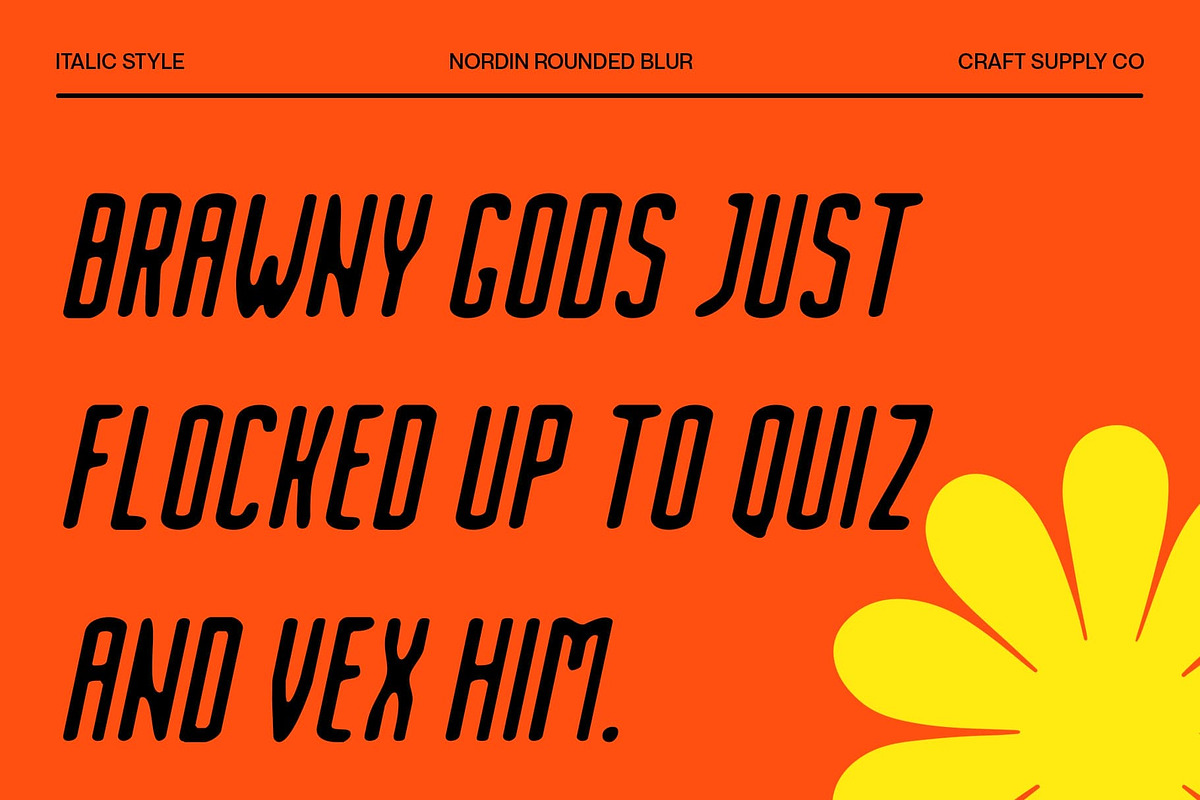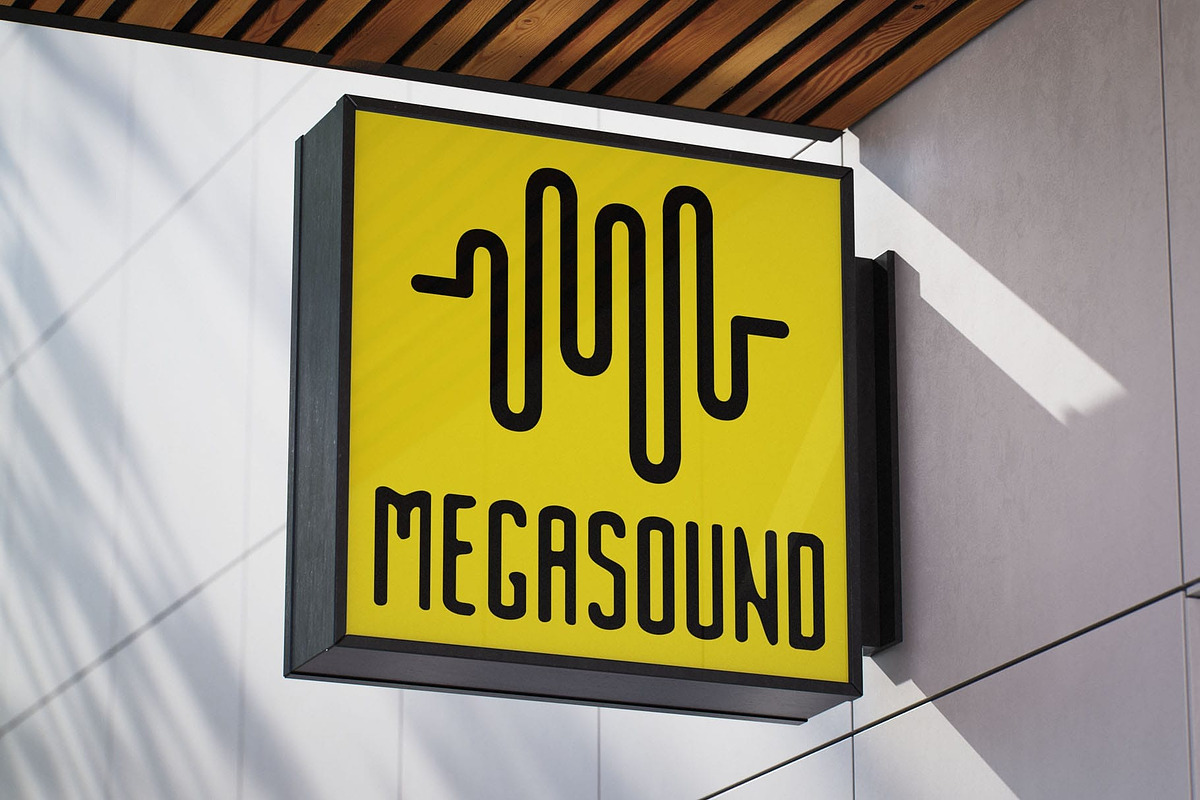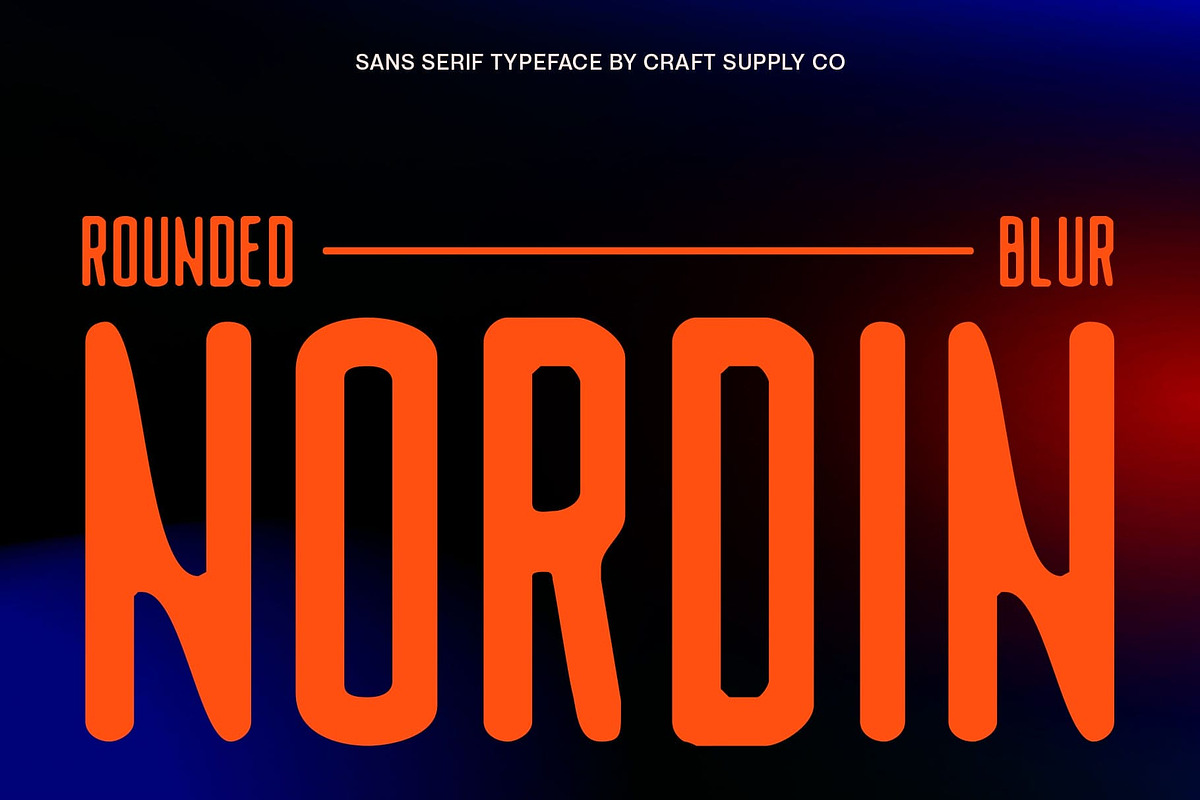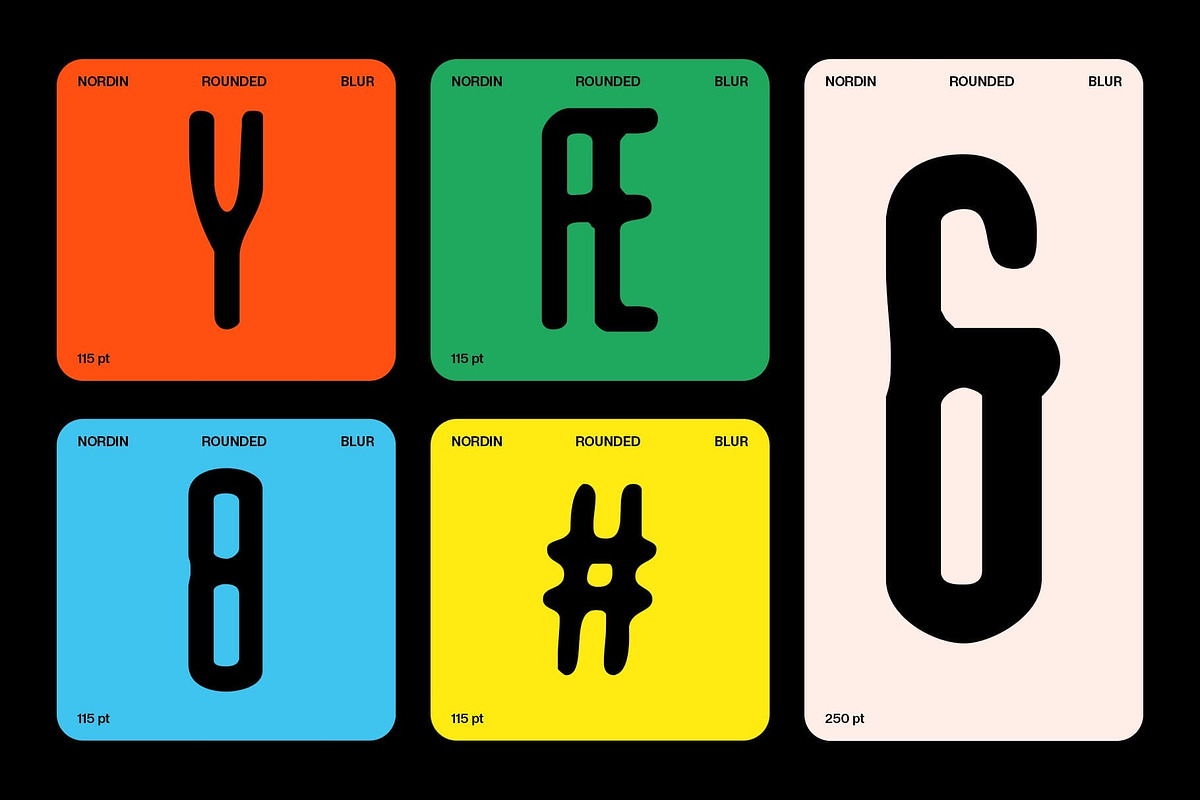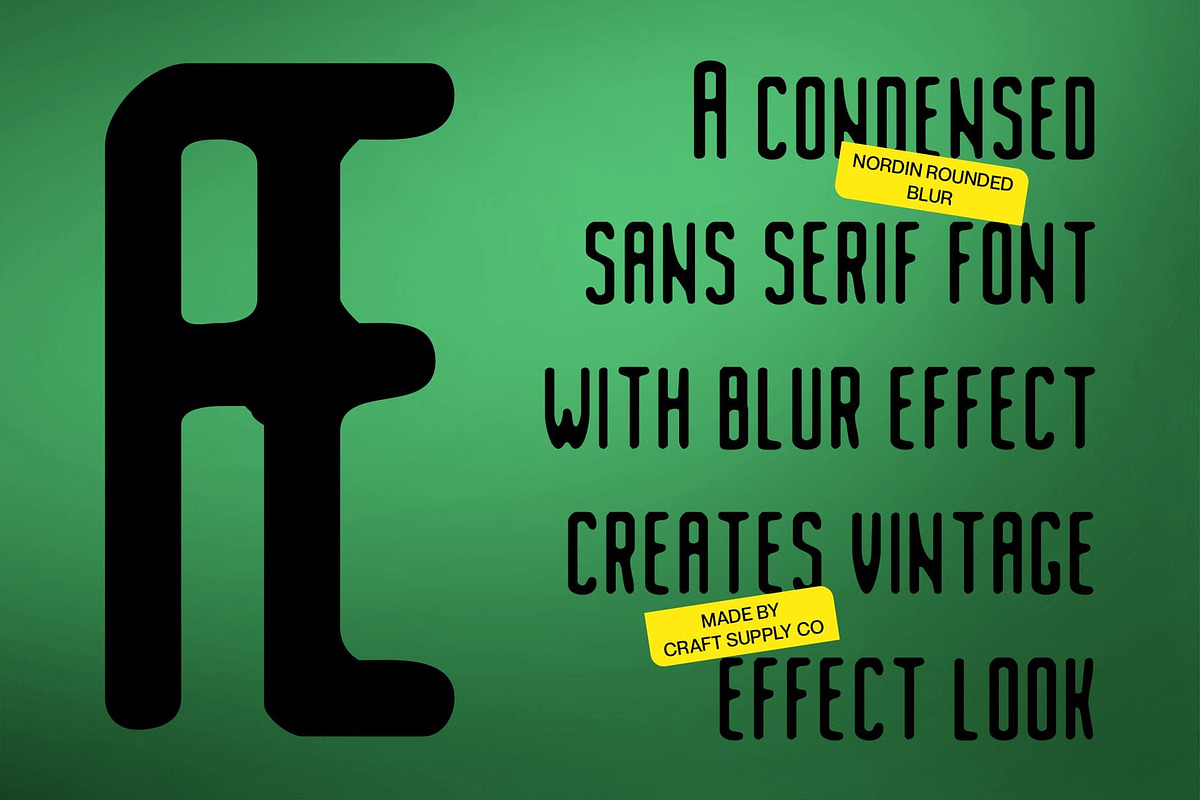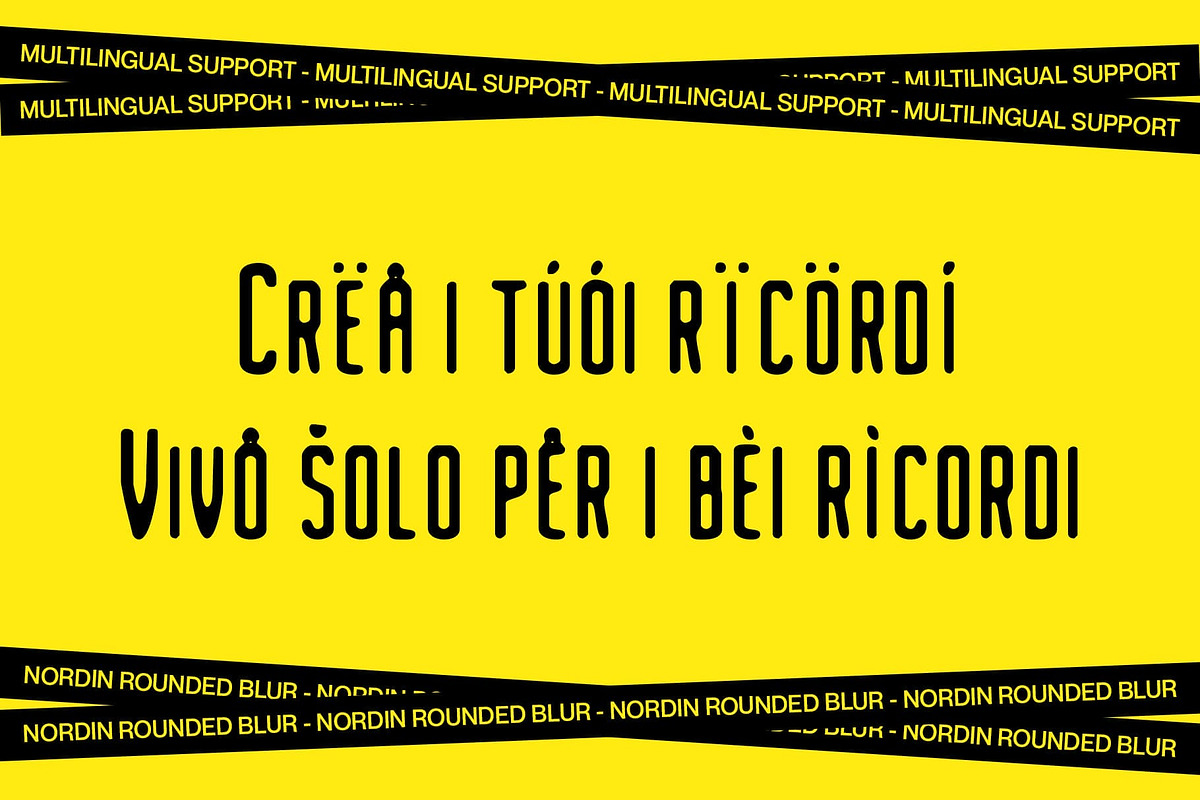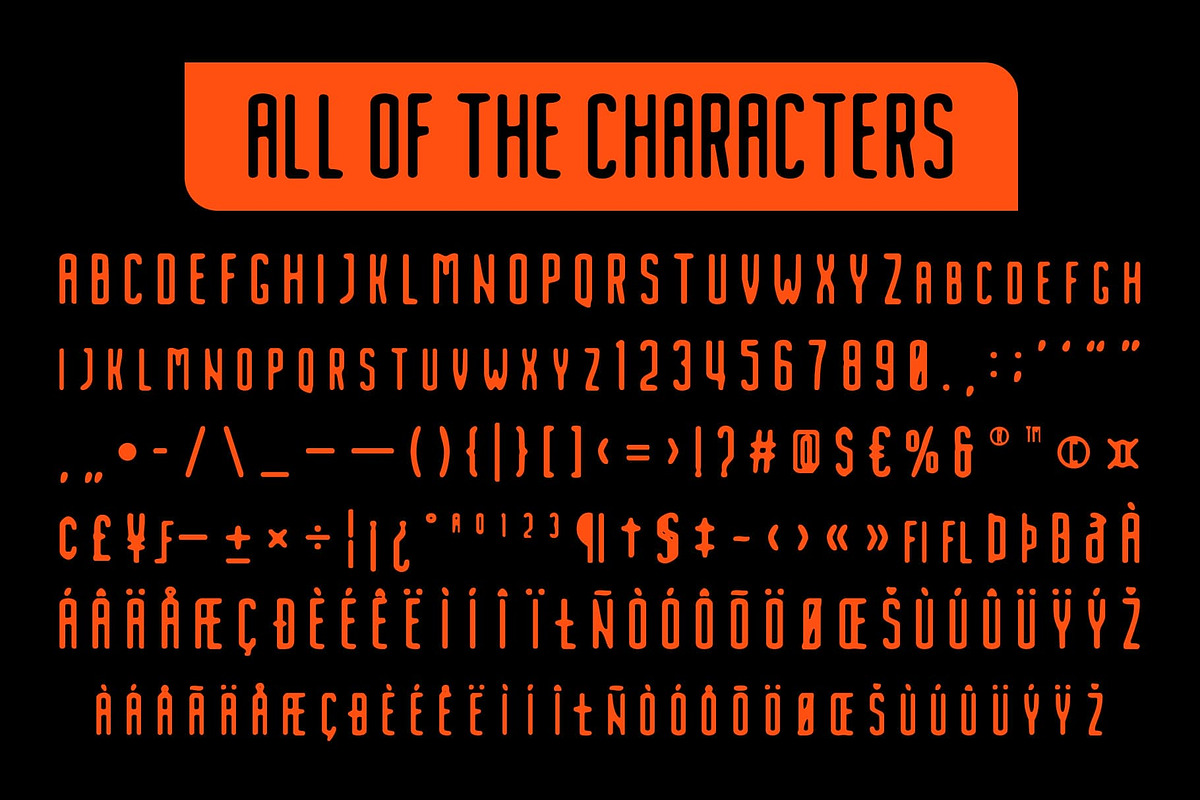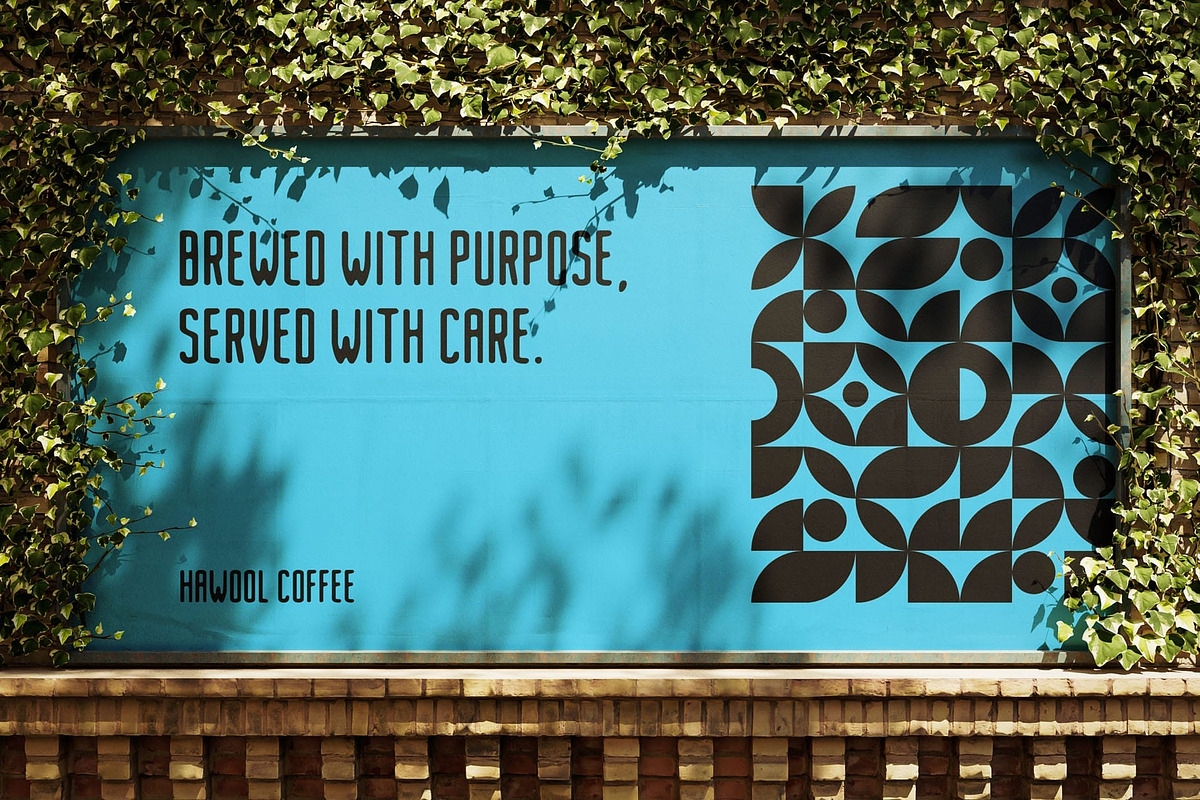
Nordin Rounded Blur
Nordin Rounded Blur: Where Softness Meets Futuristic Form
Modern Condensed Sans Serif with Blur Effect Nordin Rounded Blur is a modern sans-serif font featuring a minimalist, condensed form paired with softly rounded edges. Enhanced by a subtle blur effect, this typeface delivers a sleek yet approachable aesthetic that adds a unique visual layer to contemporary design.
Condensed and Rounded for Friendly Precision With its condensed shape and smooth curves, this modern sans serif font balances clarity with charm. The rounded edges soften the overall appearance, making it perfect for designs that want to appear modern yet warm and engaging.
Blur Effect for Dimensional and Futuristic Style The built-in blur effect introduces an ethereal, dreamy quality that enhances the futuristic impression of the font. This stylistic choice adds depth and motion, making this rounded sans serif font stand out in any creative setting.
Minimalist Structure with a Unique Twist While maintaining a clean and minimalist foundation, the font’s visual softness creates contrast and intrigue. It blends simplicity with innovation, making it suitable for digital interfaces, experimental branding, and expressive visuals.
Ideal for Bold and Creative Visual Identities This rounded font is perfect for those looking to push visual boundaries—ideal for posters, tech-forward branding, editorial graphics, or any creative project that demands a contemporary yet unconventional font choice.